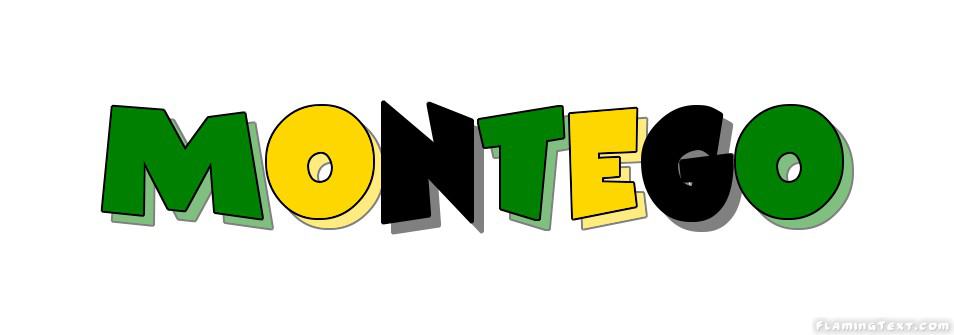
jamaica
Experience the tropical vibes of the Caribbean with the Jamaica font.
Welcome to the Jamaica Font Page
Immerse yourself in the lively rhythms of the Caribbean islands with our Jamaica font. Bursting with tropical vibes, this font captures the essence of Jamaica’s rich culture and vibrant lifestyle.
Experience the Essence of Jamaica
The Jamaica font is not just an ordinary typeface. It is a unique and expressive tool that transports you straight to the sunny beaches of Jamaica. With each letter and stroke, you can feel the pulsating rhythms, hear the reggae music and taste the spicy jerk cuisine of this exotic paradise.
Key Features:
- Lively: The Jamaica font embodies the enthusiasm and vivacity of the island’s culture.
- Versatile: From headlines to posters, logos, and banners, this font is suitable for a wide range of applications.
- Unique: Stand out from the crowd with its unique asymmetric design.